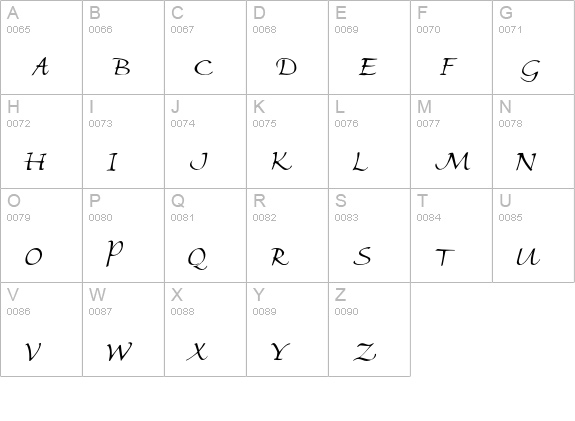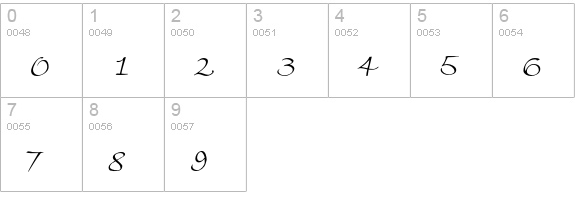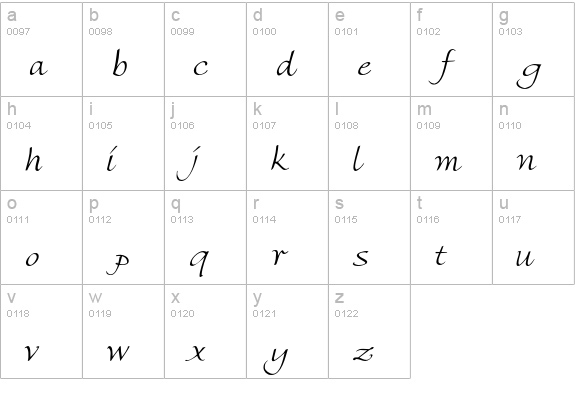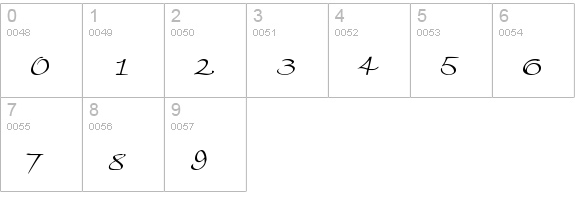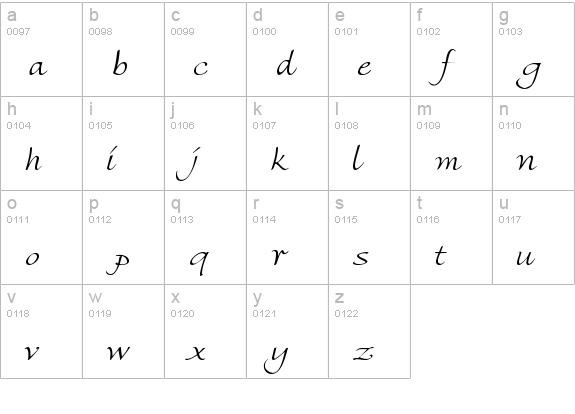
CremeSSi Font Details
Introducing CremeSSi font, a delightful and elegant typeface that exudes sophistication and charm. This versatile font features a unique blend of modern and classic elements, making it perfect for a wide range of design projects. With its sleek lines and stylish curves, CremeSSi font adds a touch of class to any text or graphic. Whether you're creating invitations, branding materials, or web designs, this font is sure to make a lasting impression. Best of all, CremeSSi font is available for free download at FontsMarket.com. This means you can easily access this stunning font and elevate your designs without breaking the bank. Don't miss out on the opportunity to enhance your projects with the timeless beauty of CremeSSi font. Download it today and let your creativity shine!